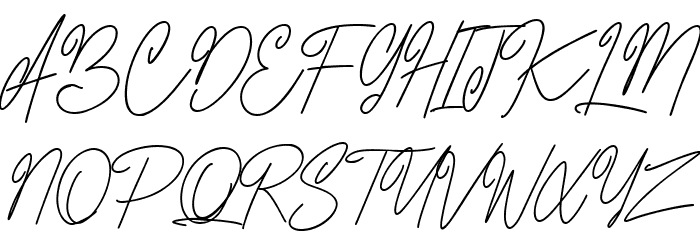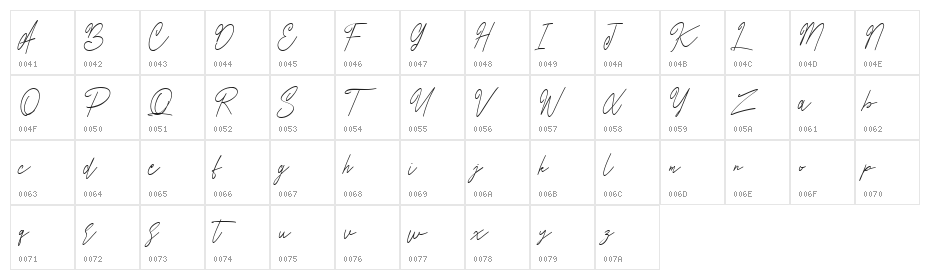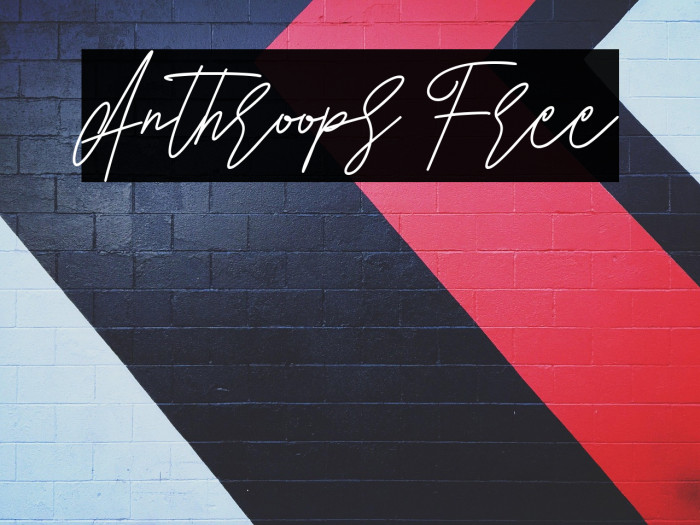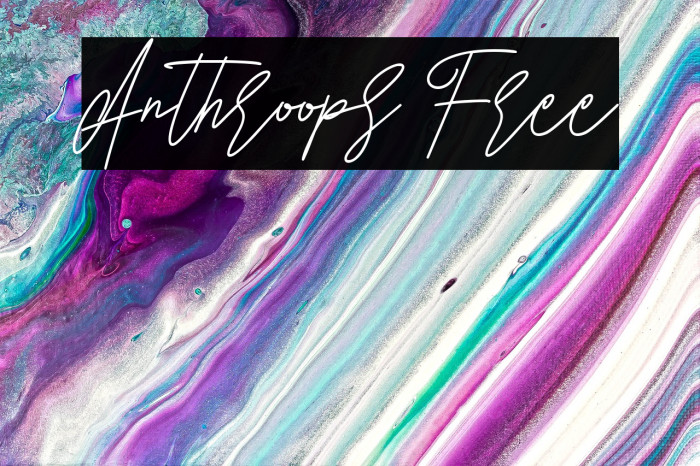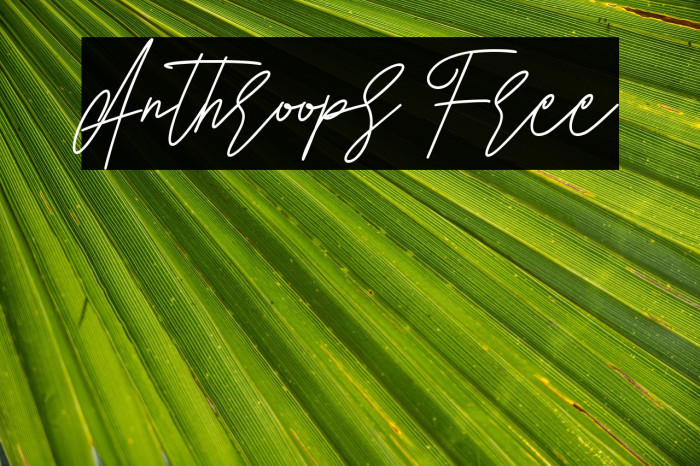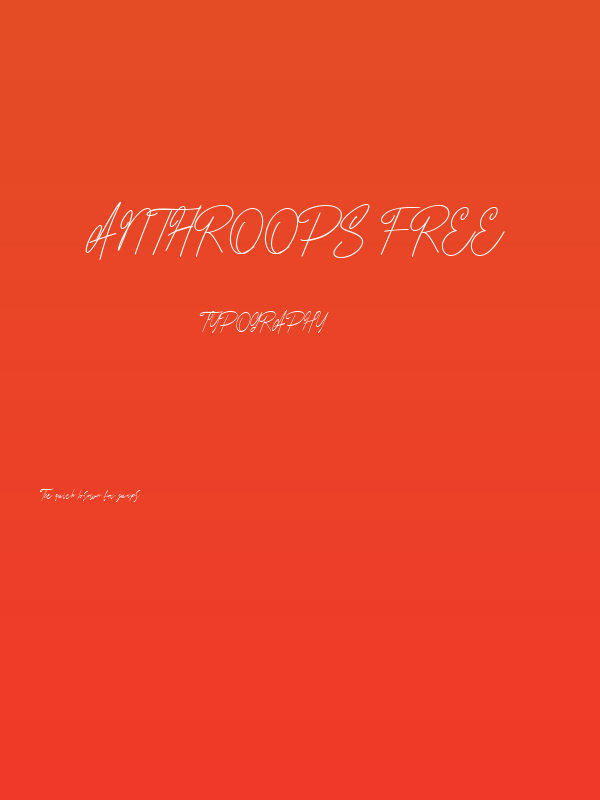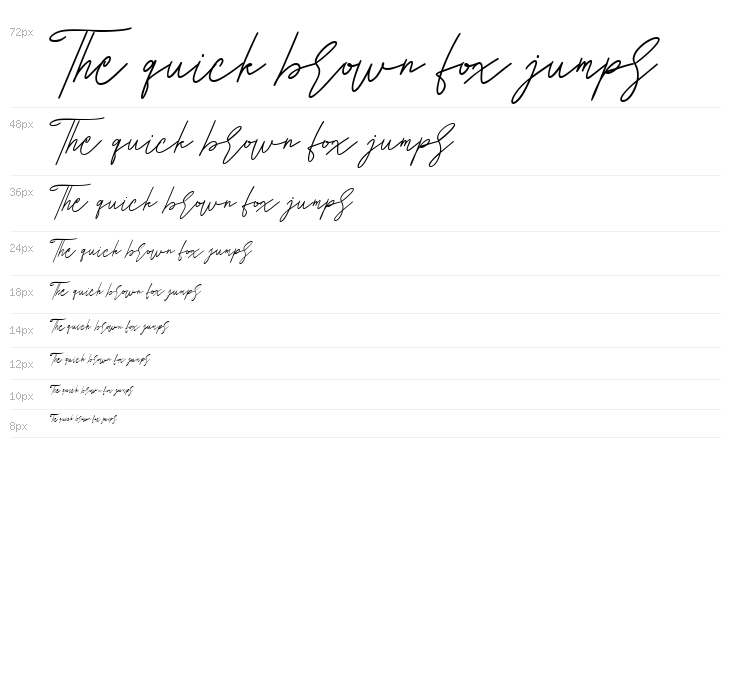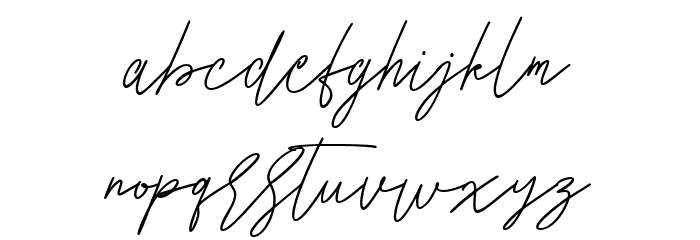
Anthroops Free Font
Anthroops Free Description
This font exudes a dynamic and elegant handwritten style, characterized by its fluid and connected letterforms. The uppercase letters are bold and sweeping, with a sense of motion and flair, while the lowercase letters maintain a consistent flow, enhancing readability. The strokes are thin and delicate, giving the font a refined and sophisticated appearance. The overall design is both modern and timeless, making it suitable for a variety of creative applications. The font's unique personality is perfect for projects that require a personal touch or artistic flair.
| Overall Style | Elegant, Artistic |
| Use Case | Logos, Invitations, Artistic Projects |
| Proposed Projects | Ideal for wedding invitations, personal branding, greeting cards, and artistic posters. |